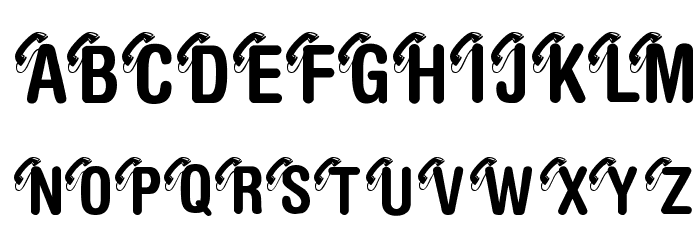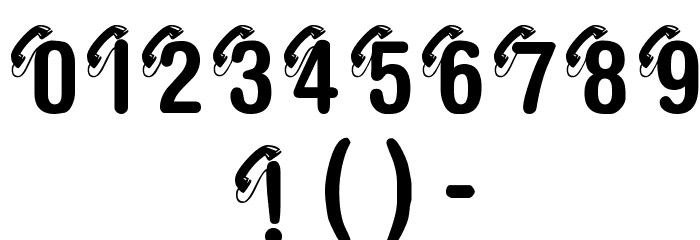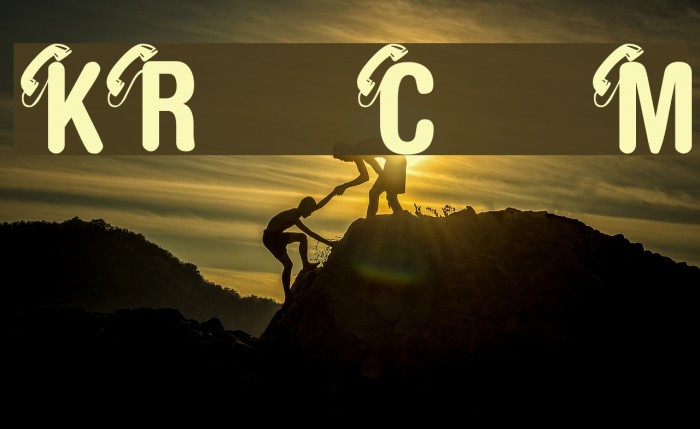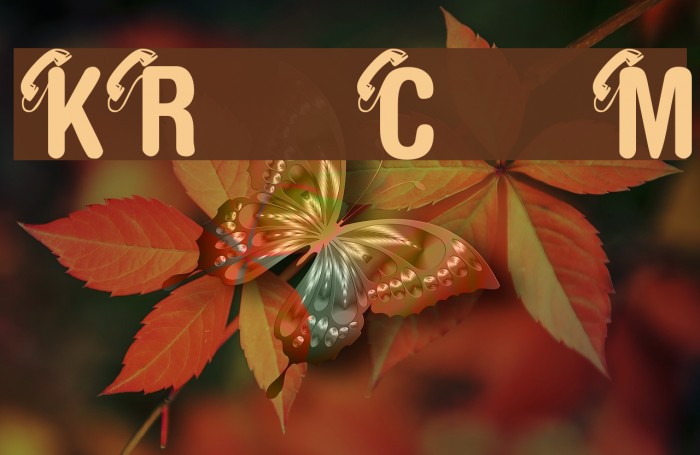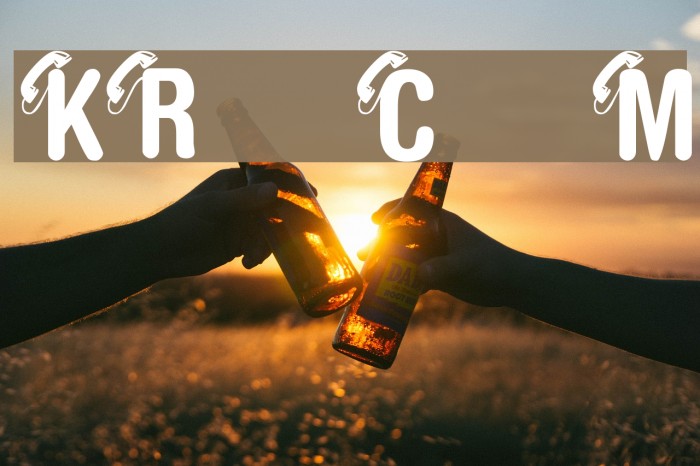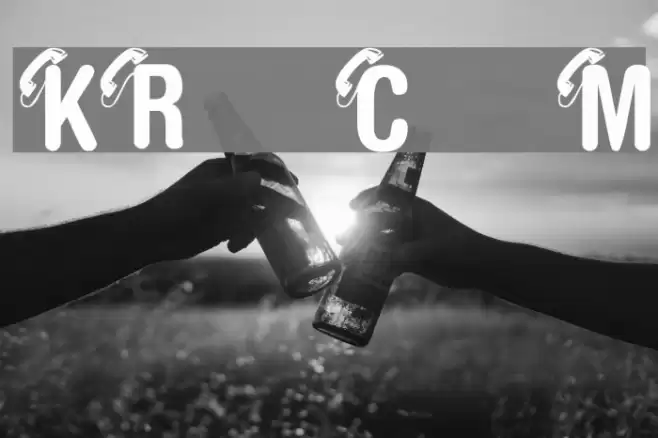
KR Call Me Font
This playful and unique font features a telephone handset integrated into each character, creating a whimsical and eye-catching design. The letters are bold and rounded, with a consistent stroke width that maintains readability despite the decorative elements. The integration of the handset is seamless, adding a touch of humor and creativity to the font. It is well-suited for projects that require a fun and informal tone, such as children's books, playful branding, or novelty items. The font maintains a balance between its decorative elements and legibility, making it versatile for various design applications.
A playful font with telephone handsets integrated into each character.
- Proposed Projects: Ideal for children's books, playful branding, novelty items, and creative advertising.
- Overall Style: Playful, Whimsical